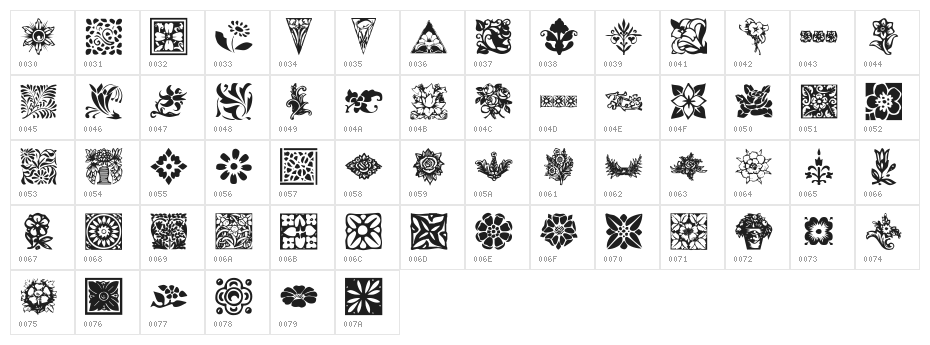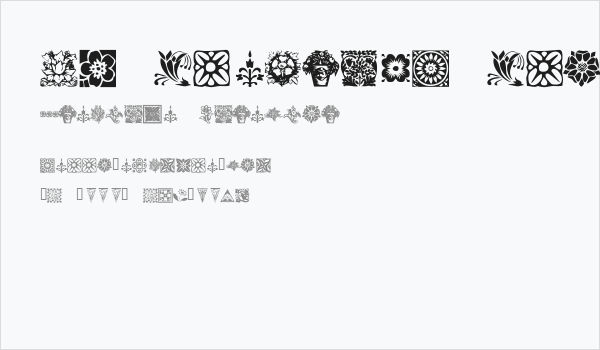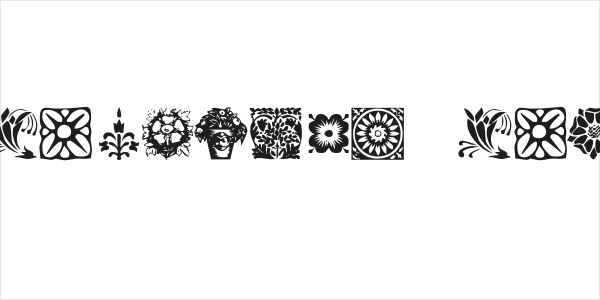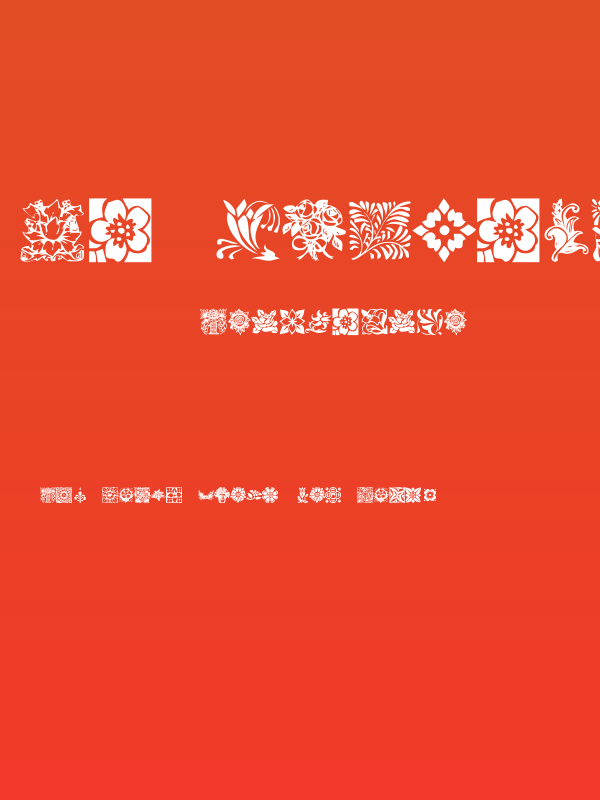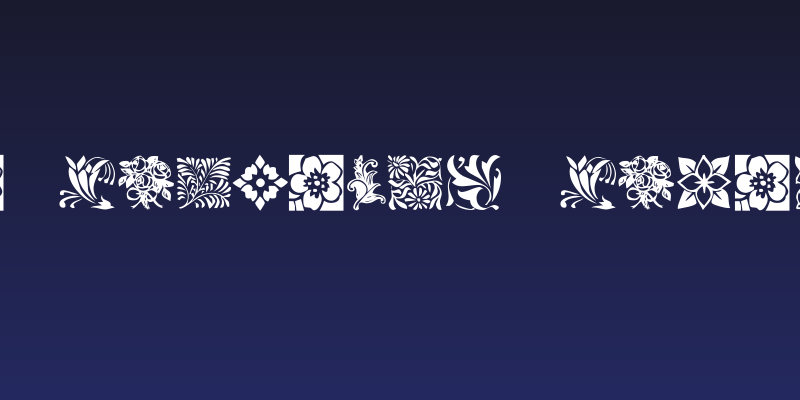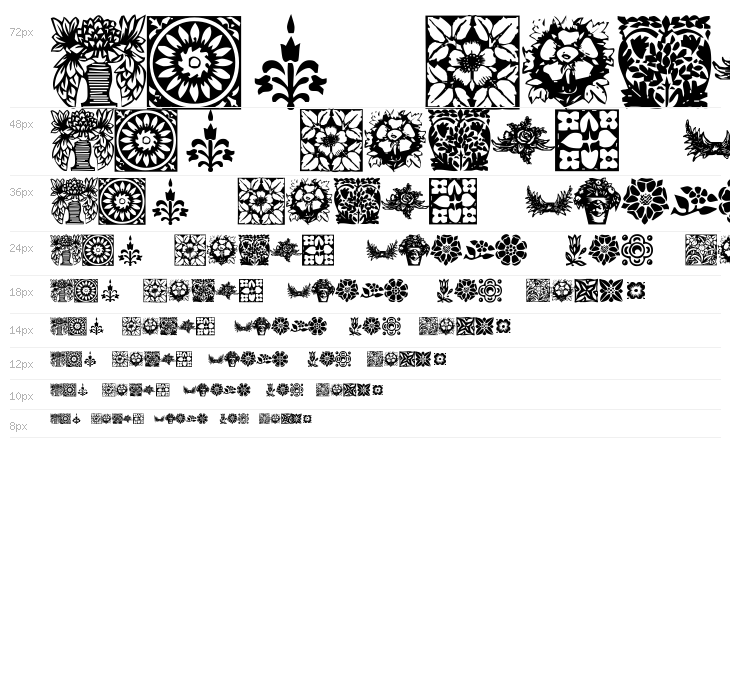
KR Fleurish Floral Font
KR Fleurish Floral Description
This collection features a diverse array of intricate floral and botanical designs, each crafted with a high level of detail and artistic flair. The elements range from delicate flowers and leaves to more complex arrangements and patterns, showcasing a blend of natural elegance and decorative artistry. These designs are perfect for adding a touch of nature-inspired beauty to any project. The motifs are versatile, suitable for both modern and traditional themes, and can be used to create borders, frames, or standalone decorative elements. The overall aesthetic is both timeless and sophisticated, making it ideal for a wide range of creative applications.
| Use Case | Logos, Decorative elements |
| Proposed Projects | Ideal for wedding invitations, greeting cards, decorative borders, and textile patterns. |